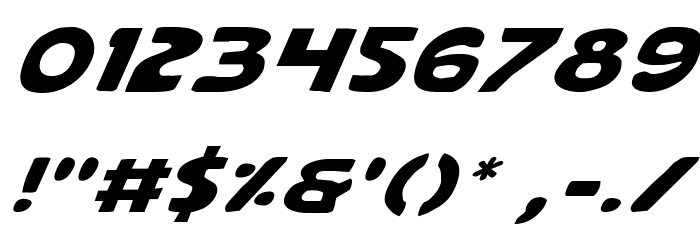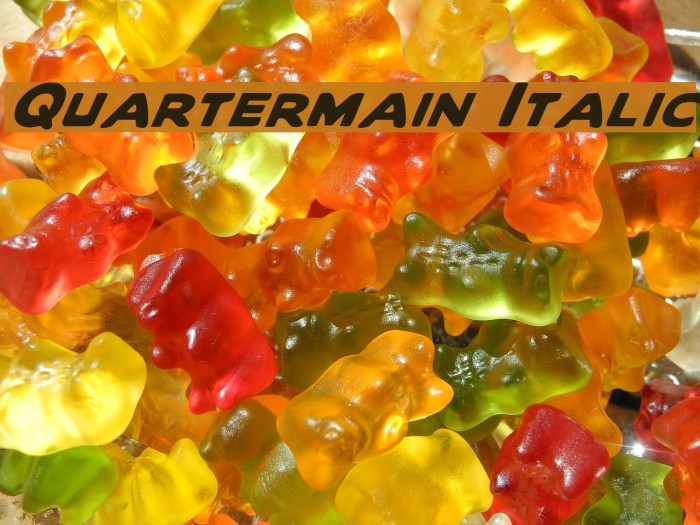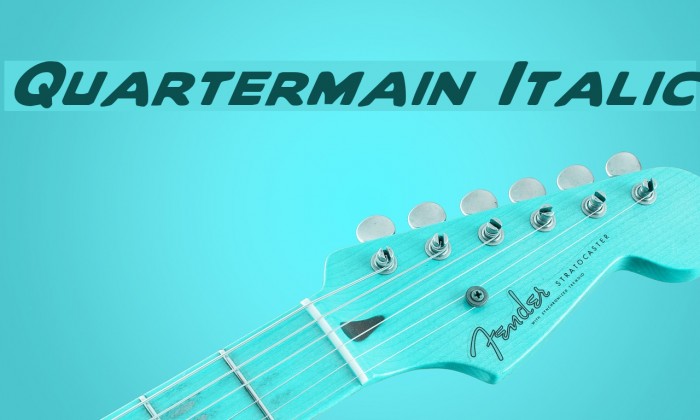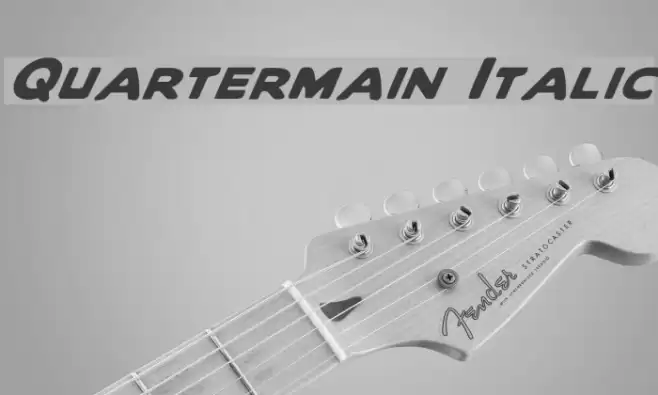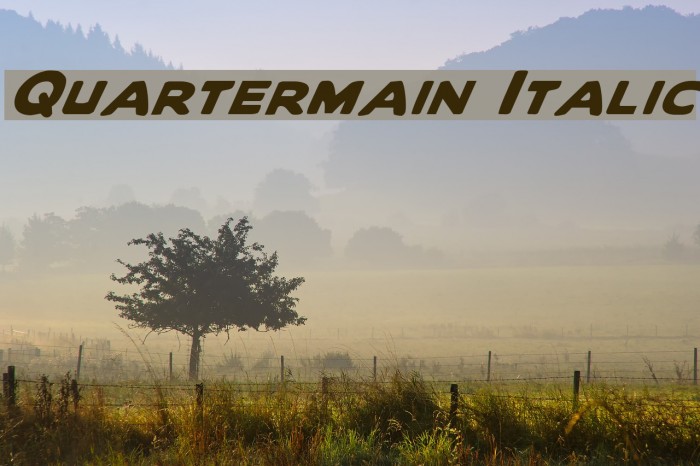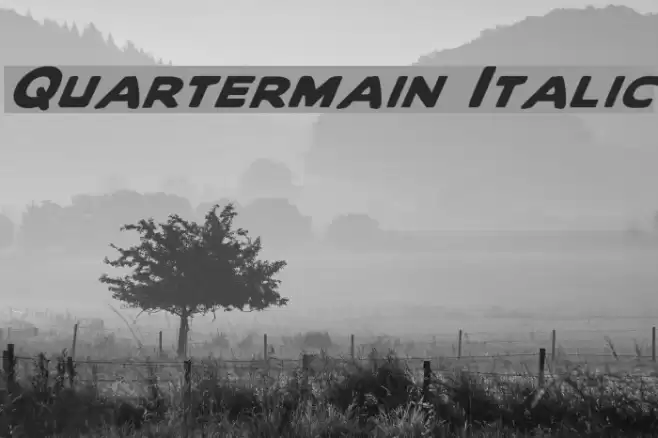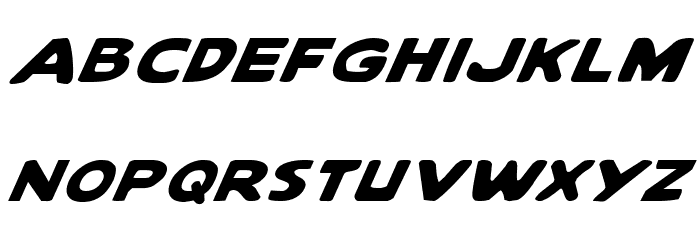
Quartermain Italic Font
Quartermain Italic Description
This font features a bold and dynamic italic style, characterized by its strong, slanted letterforms that convey a sense of movement and energy. The uppercase and lowercase letters maintain a consistent slant, enhancing the italicized effect. The numerals and special characters are designed to match the boldness and slant of the alphabet, ensuring a cohesive appearance across all characters. The strokes are thick and uniform, providing a strong visual impact, while the rounded edges add a touch of softness to the overall design. This font is well-suited for projects that require a bold statement or a sense of urgency.
| Proposed Projects | Ideal for sports branding, dynamic posters, action-themed graphics, and eye-catching headlines. |